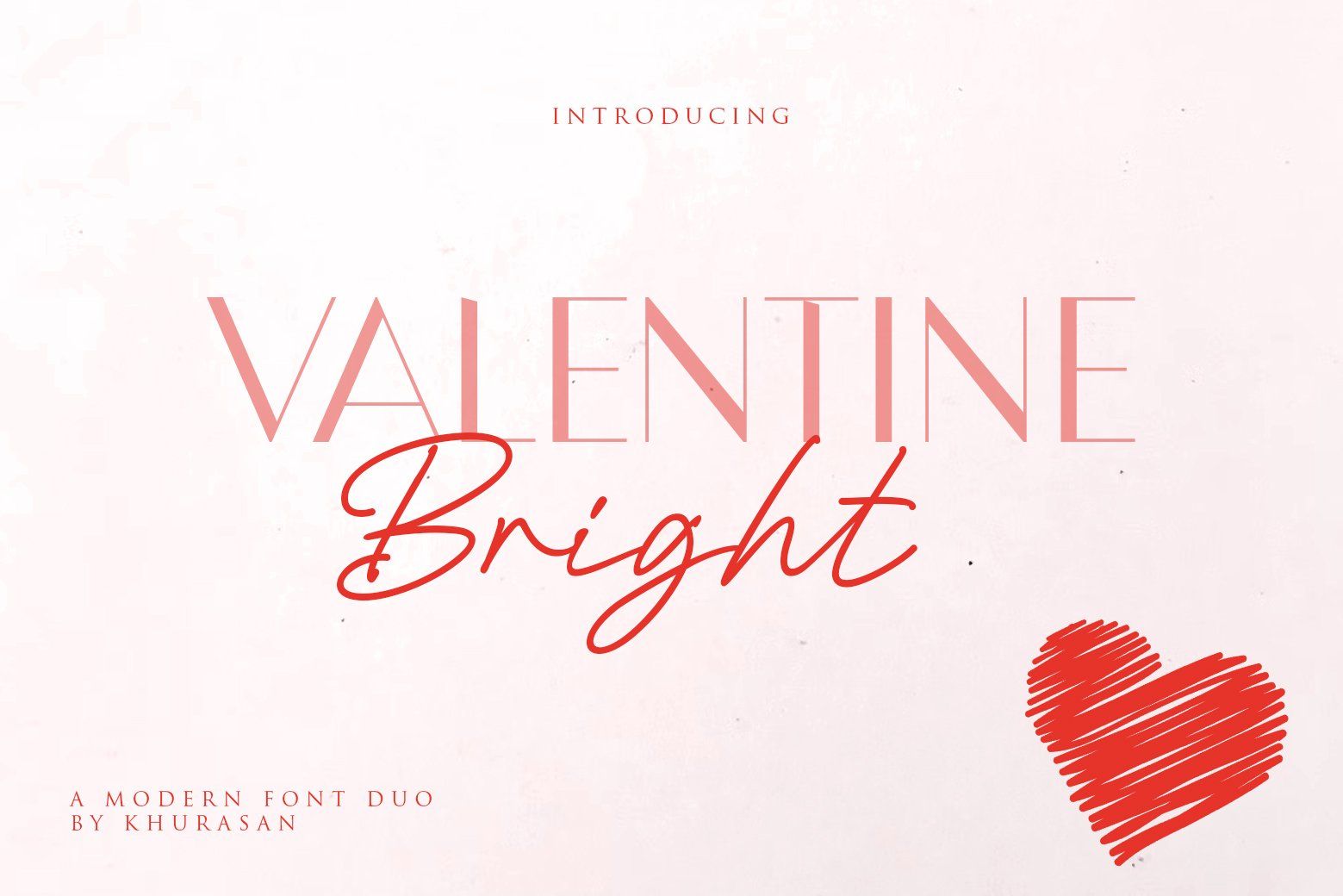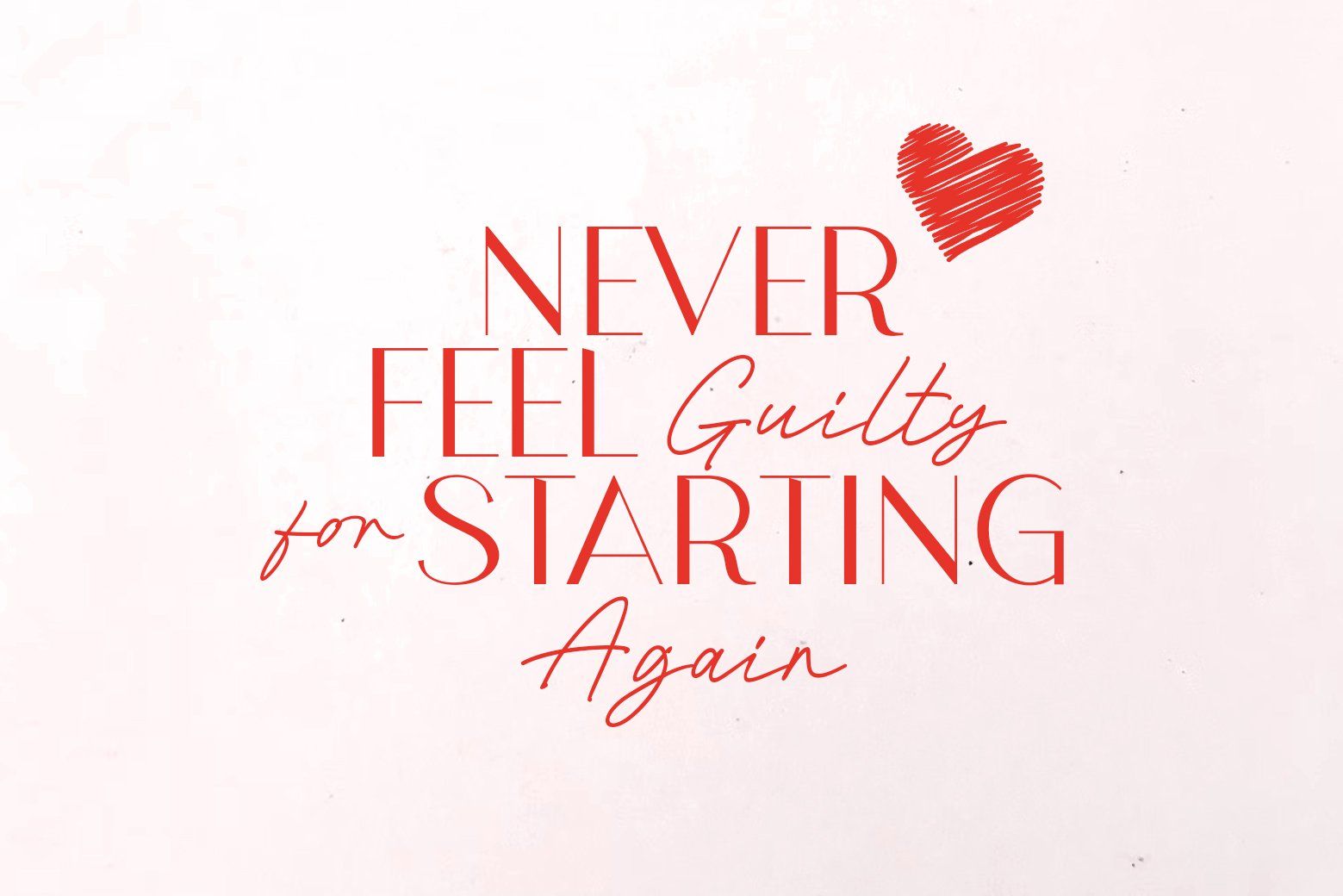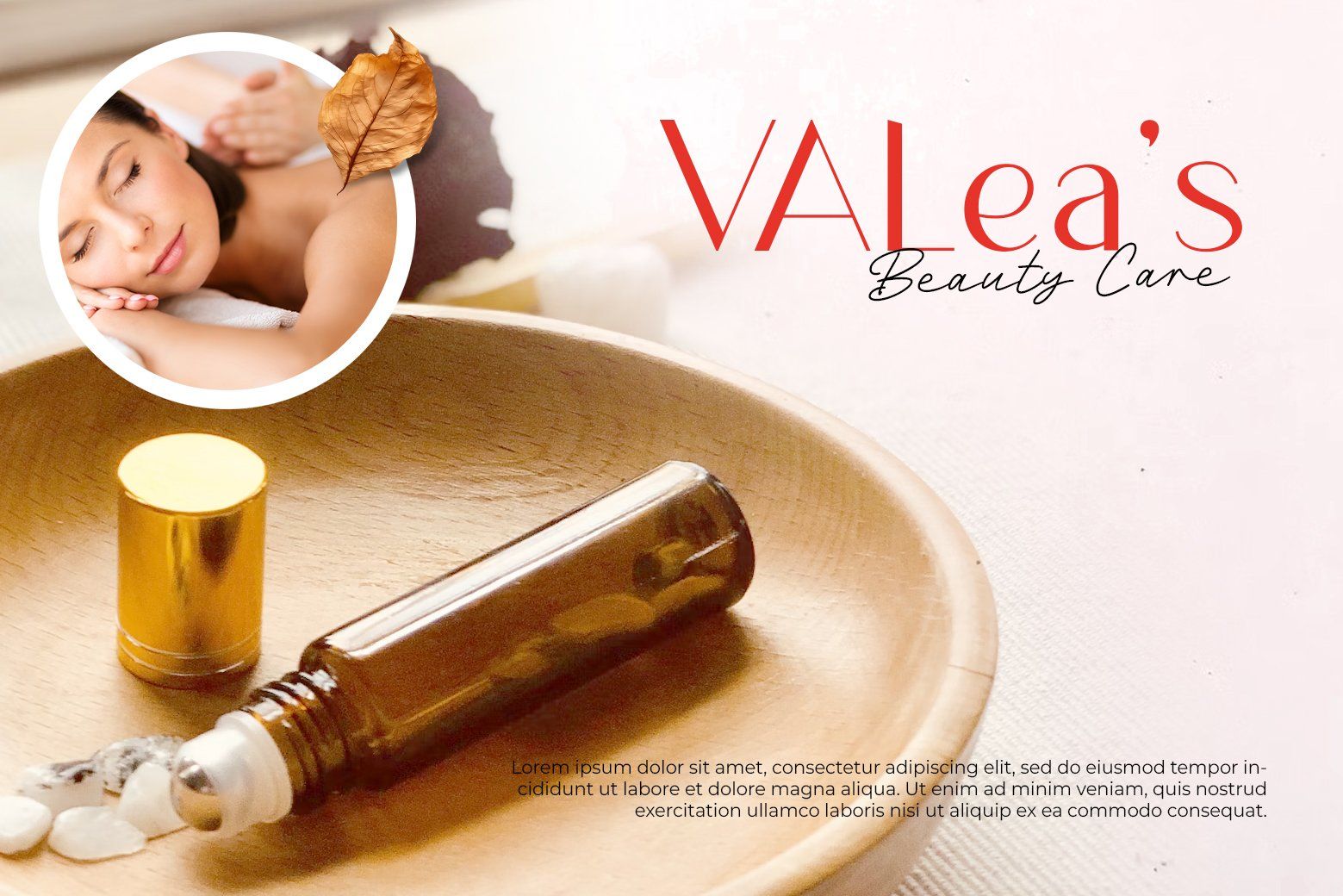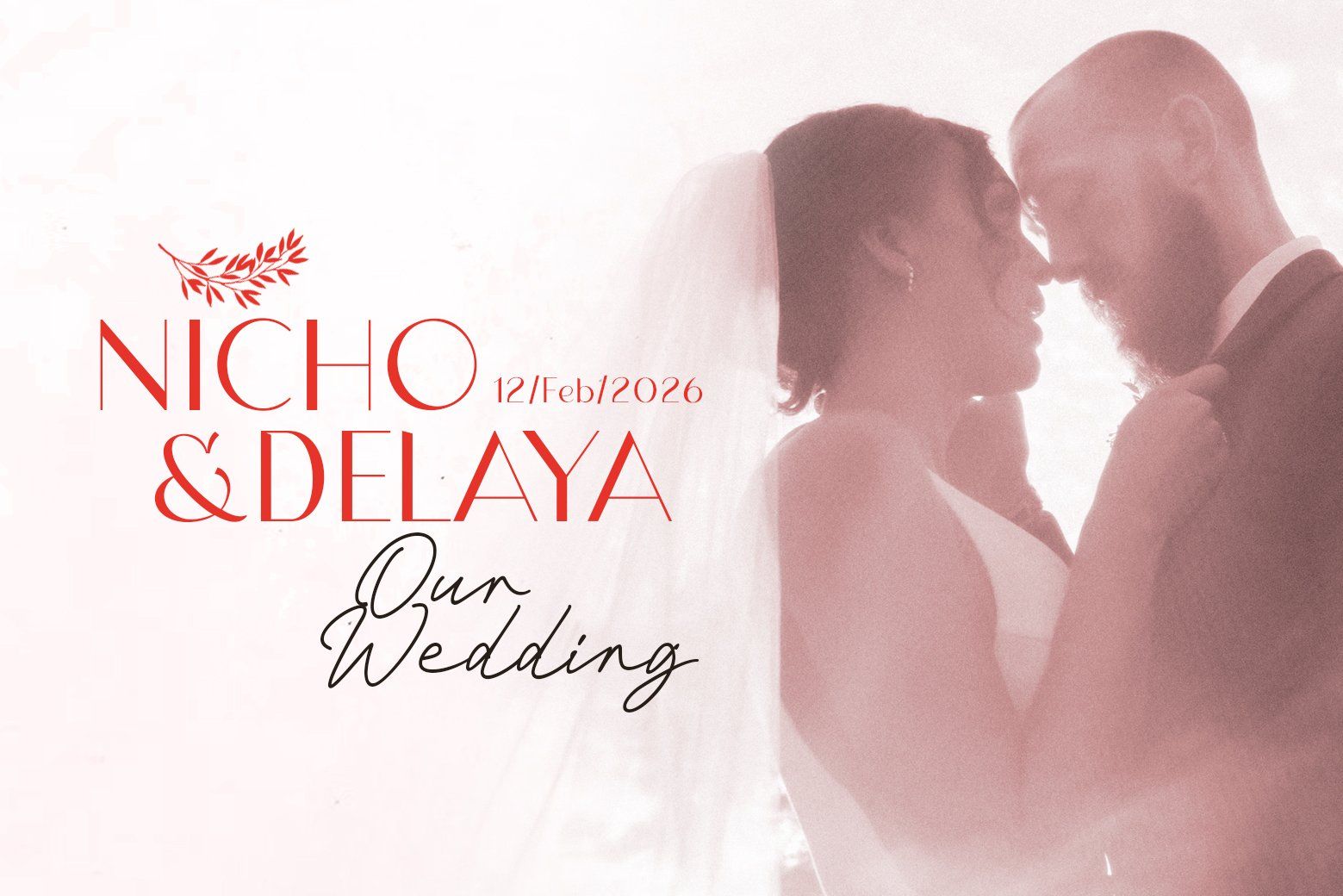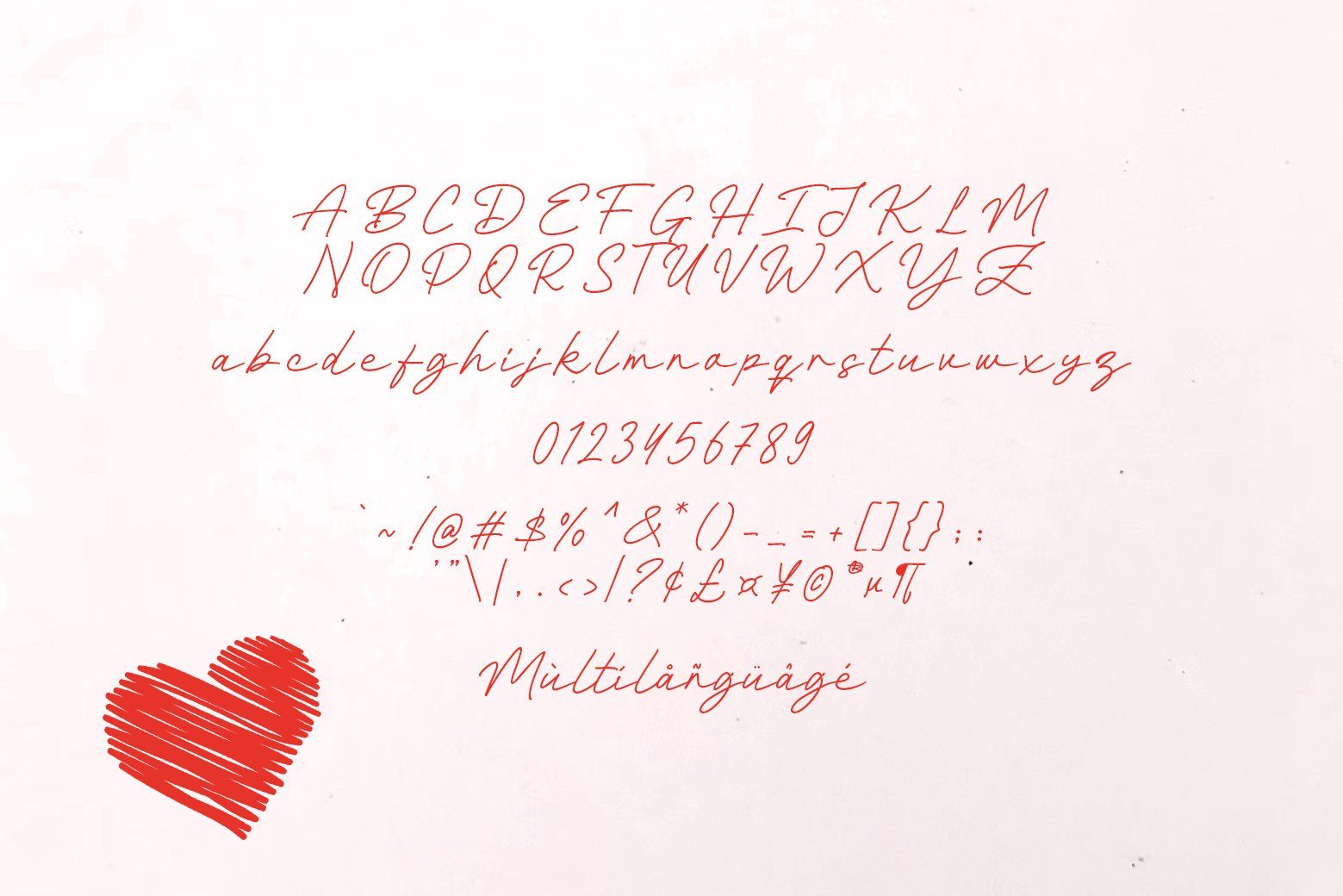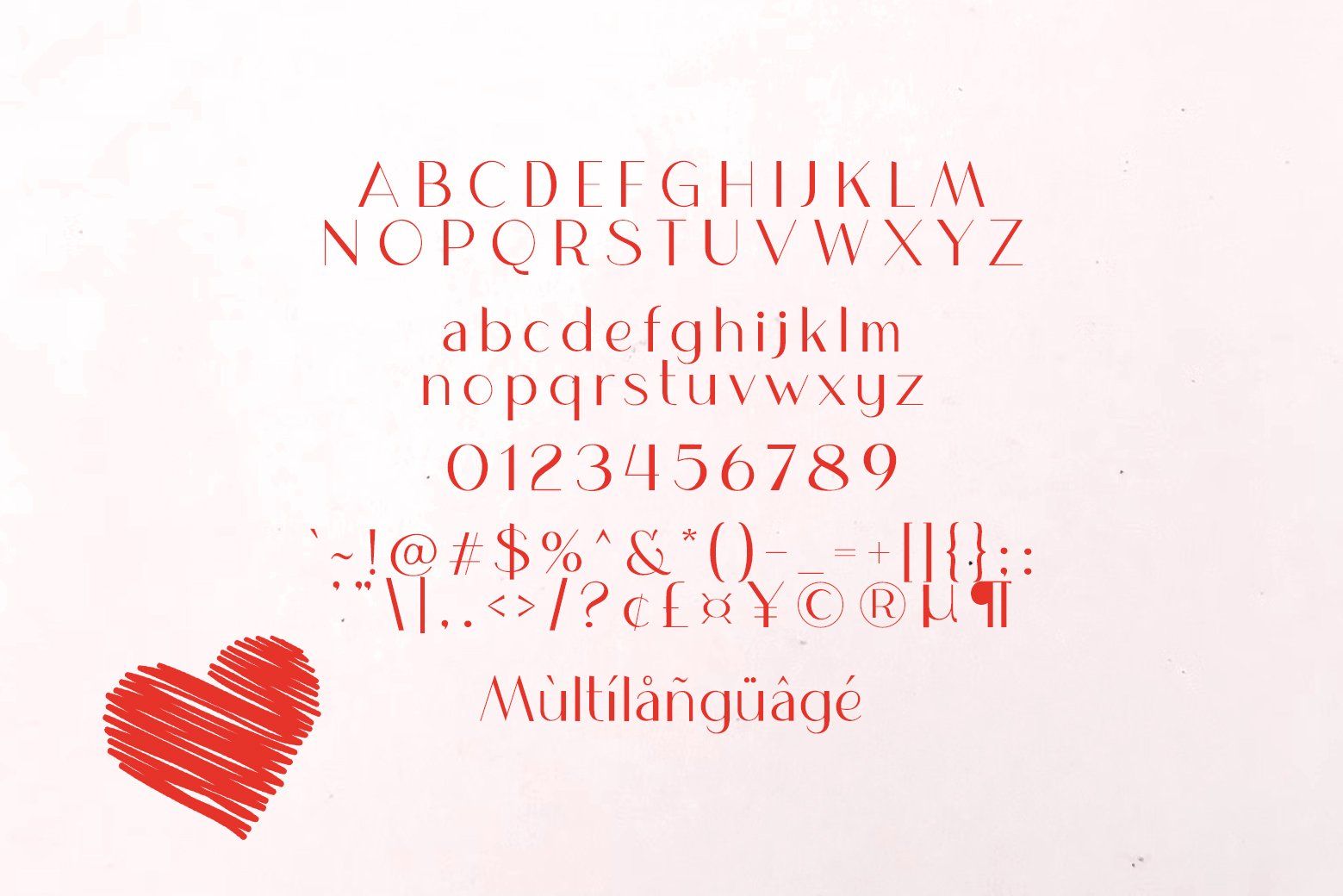
Create love stories through letters with Valentine Bright — the romantic font duo that captures hearts.
Valentine Bright pairs a graceful script that flows like handwritten love notes with a clean, modern serif that brings balance and clarity. Together, they create perfect harmony between emotion and elegance, making every design feel warm, intimate, and unforgettable.
Perfect for wedding invitations, Valentine cards, romantic branding, social media quotes, or love-themed packaging. Valentine Bright adds a touch of passion and charm that instantly connects with the viewer's heart.